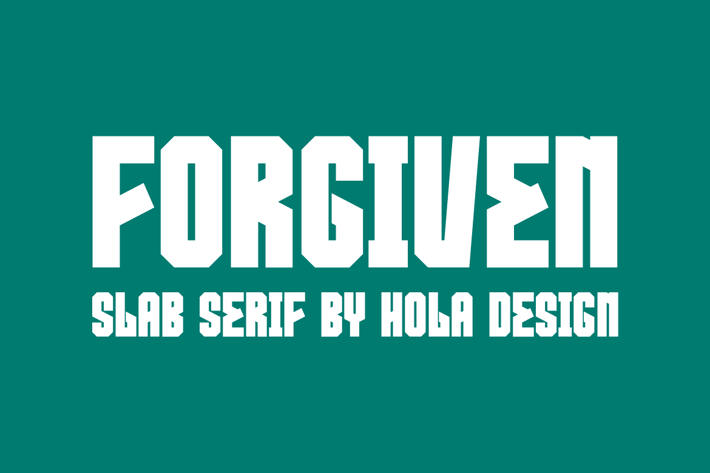
Forgiven _ Slab Serif Font
Forgiven _ Slab Serif Font Font is unique . Ready to use for your design like labeling, movie sceen, poster, movie title, gigs, album covers, logos, and much more.